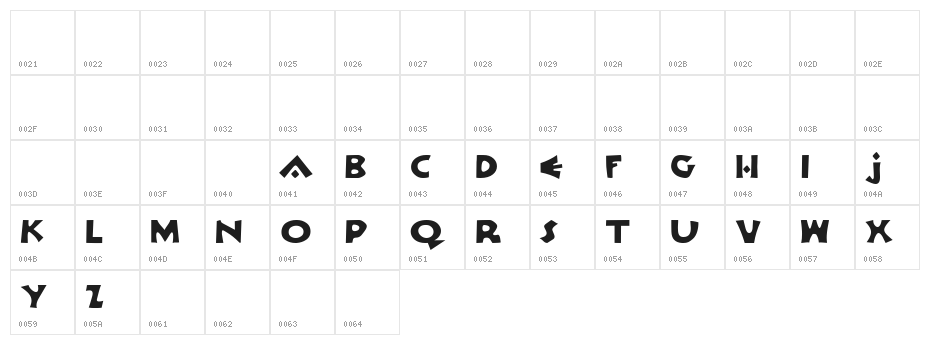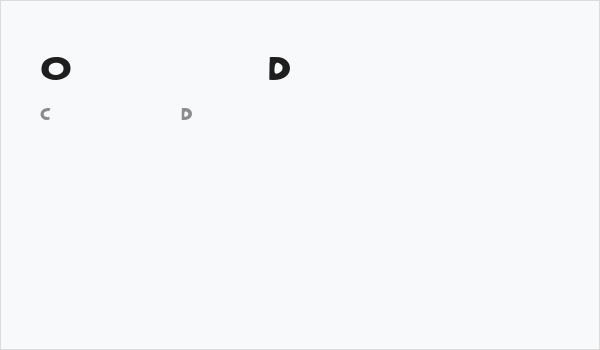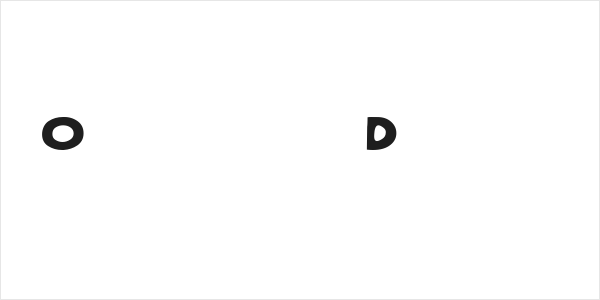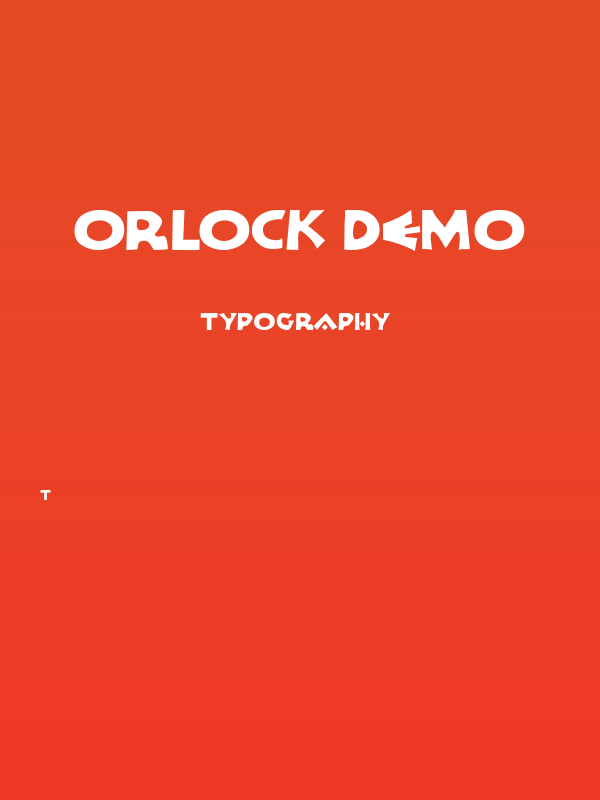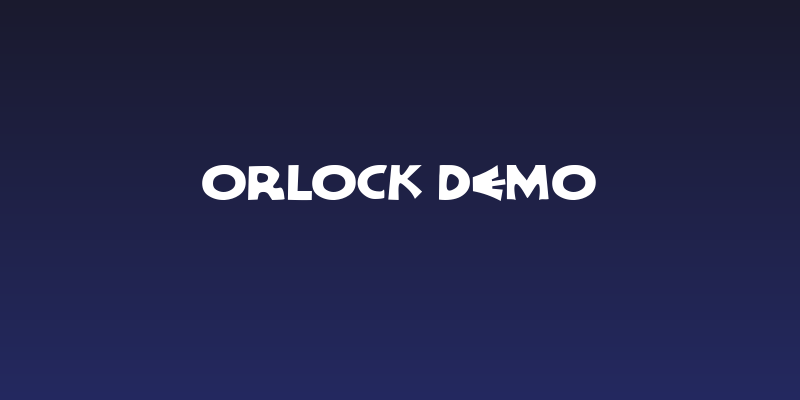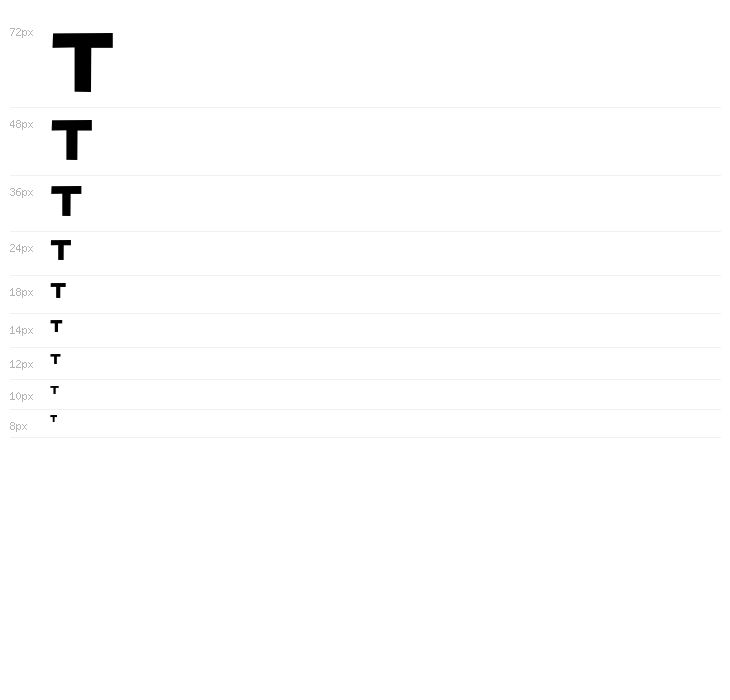
Orlock Demo Font
Orlock Demo Description
This font features a bold and striking design with sharp, angular edges and a geometric style. The uppercase letters are crafted with unique, edgy shapes that give a sense of movement and energy. The overall appearance is modern and slightly futuristic, with a playful yet assertive character. The font's distinctiveness makes it stand out, making it ideal for creative and bold design projects. Its strong visual impact is perfect for grabbing attention and making a statement.
| Proposed Projects | Ideal for posters, logos, video game graphics, and any project requiring a bold, eye-catching typeface. |